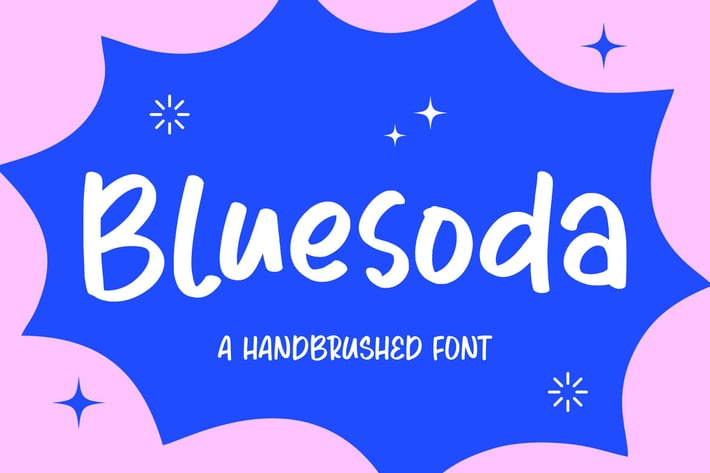
Bluesoda - Handbrushed Logo Font
Introducing by Balpirick Studio.
Bluesoda is a handbrushed font that's perfect for adding a personal touch to your design projects! With its natural, organic feel and unique character.
Crafted with care and attention to detail, this font is incredibly versatile and can be used for a range of design projects, including logos, branding, invitations, and more. Its modern, handwritten style gives it a unique character that's sure to make an impact.